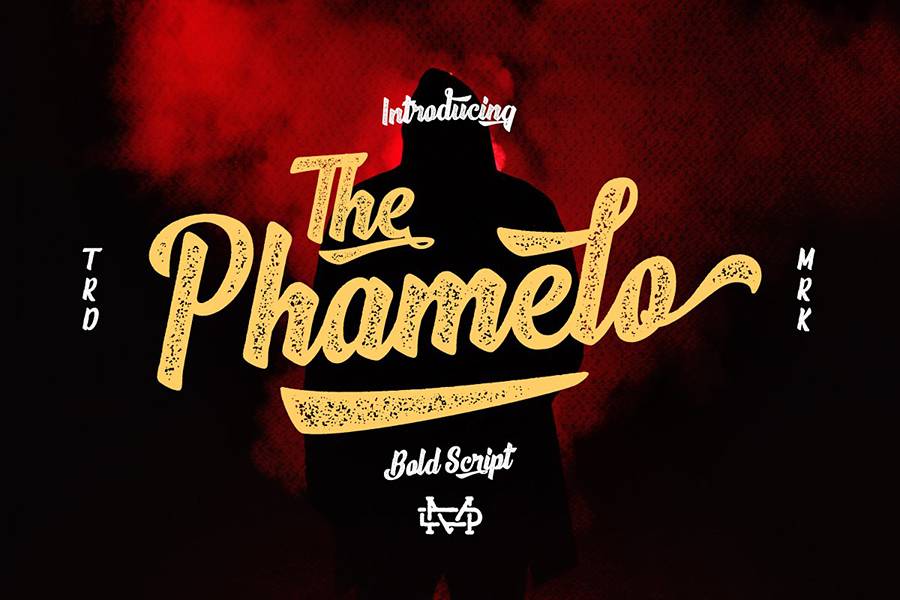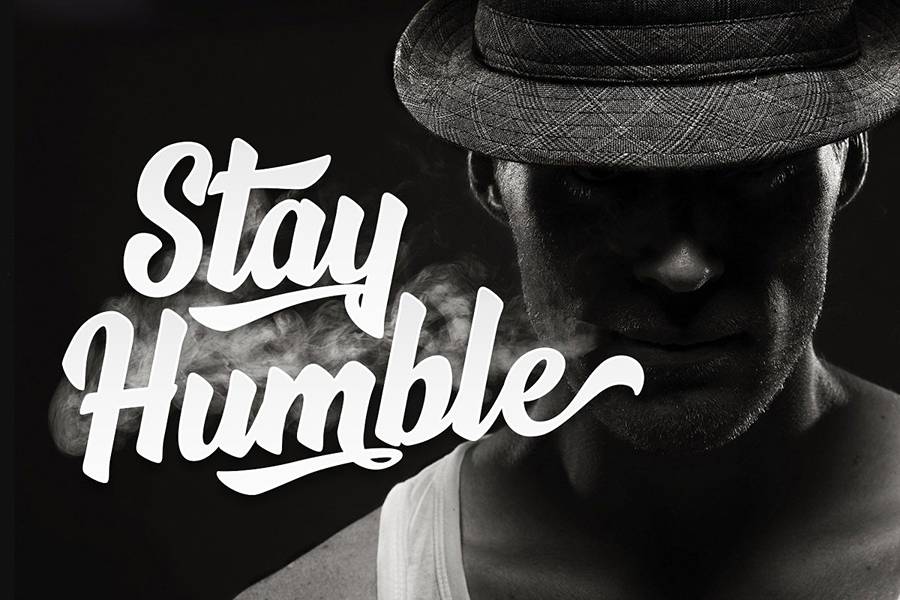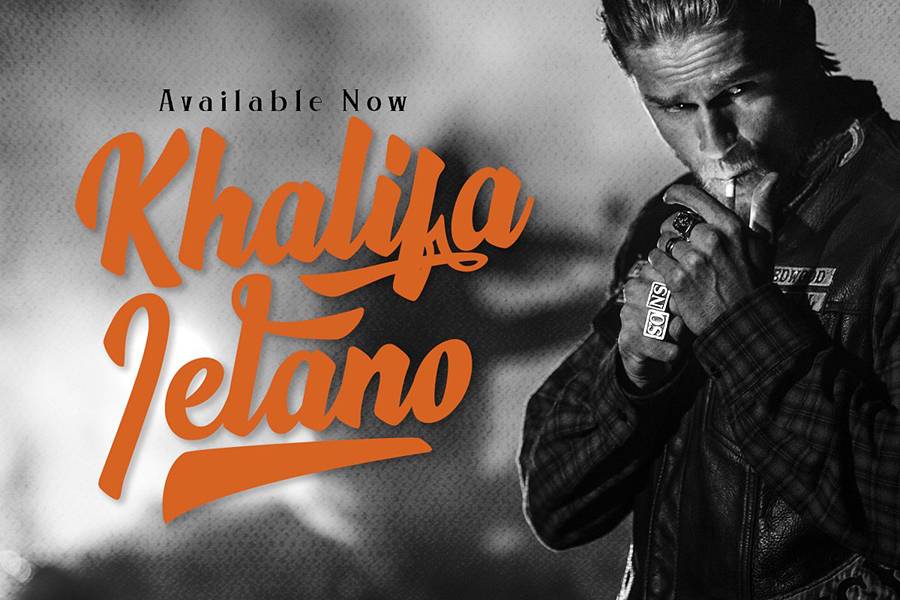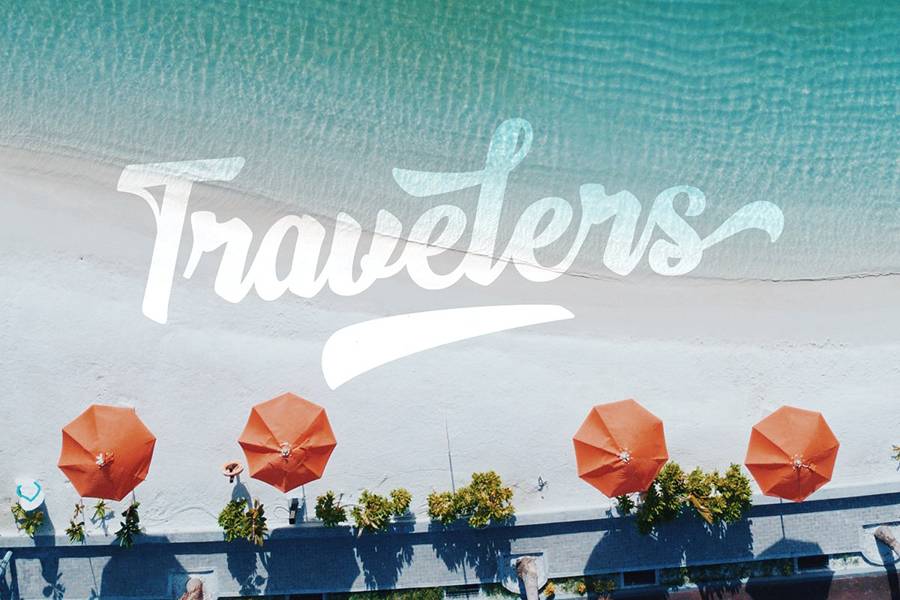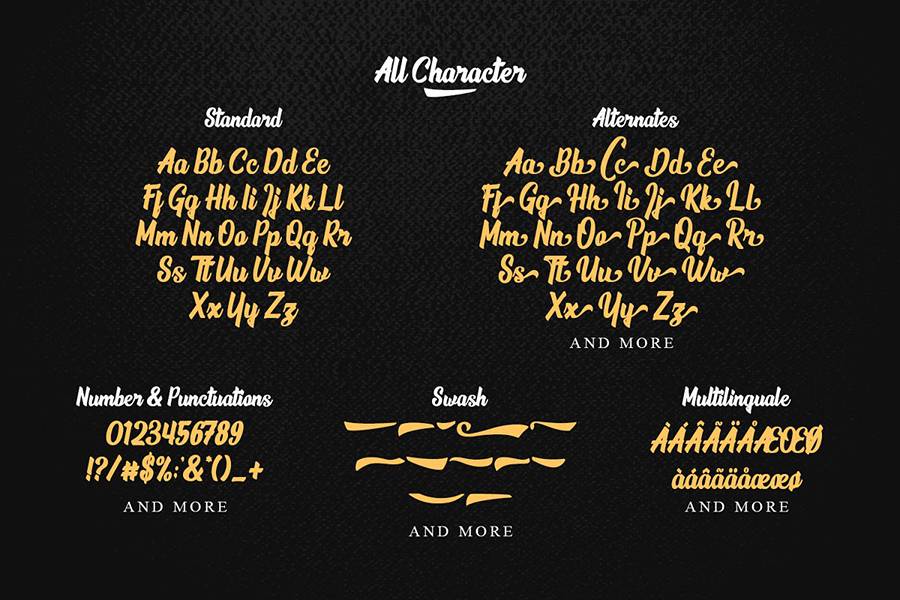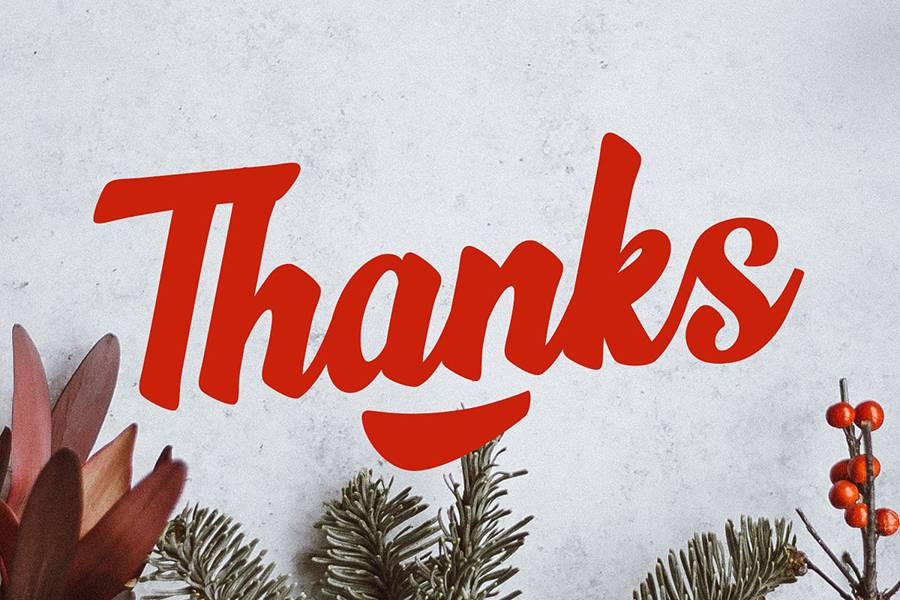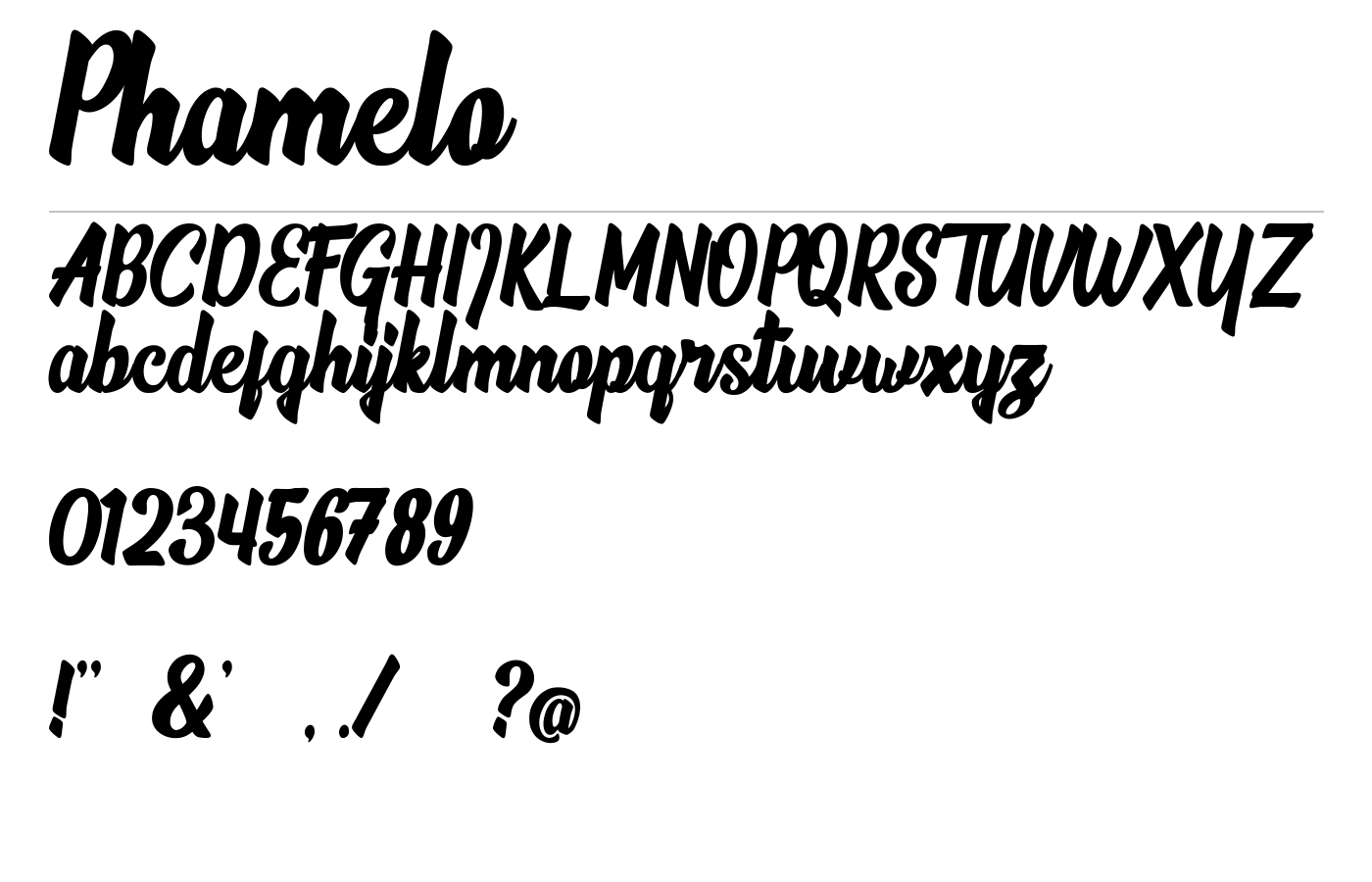
The Phamelo Bold Script is a lively and bold script font characterized by thick, flowing strokes and a playful, hand-drawn feel. Its strong weight and slightly condensed letterforms make it eye-catching and perfect for creating energetic, informal designs that demand attention. Ideal for logos, headlines, and branding projects, it adds a friendly and spirited touch to any creative work.
The Phamelo Bold Script
About The Phamelo Bold Script
| Font family | The Phamelo Bold Script |
| Release date | 2019-01-14 |
| Designer | Suandana I Pande Made |